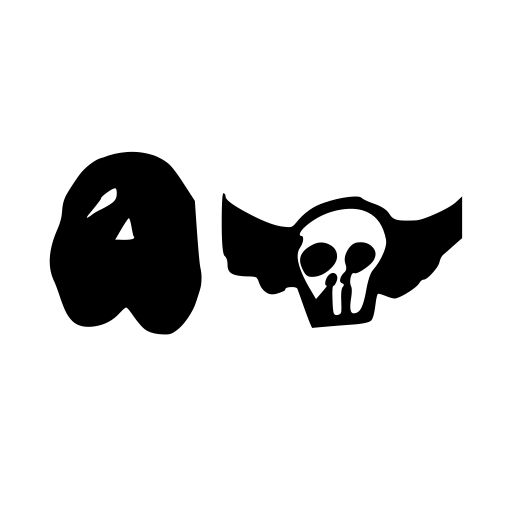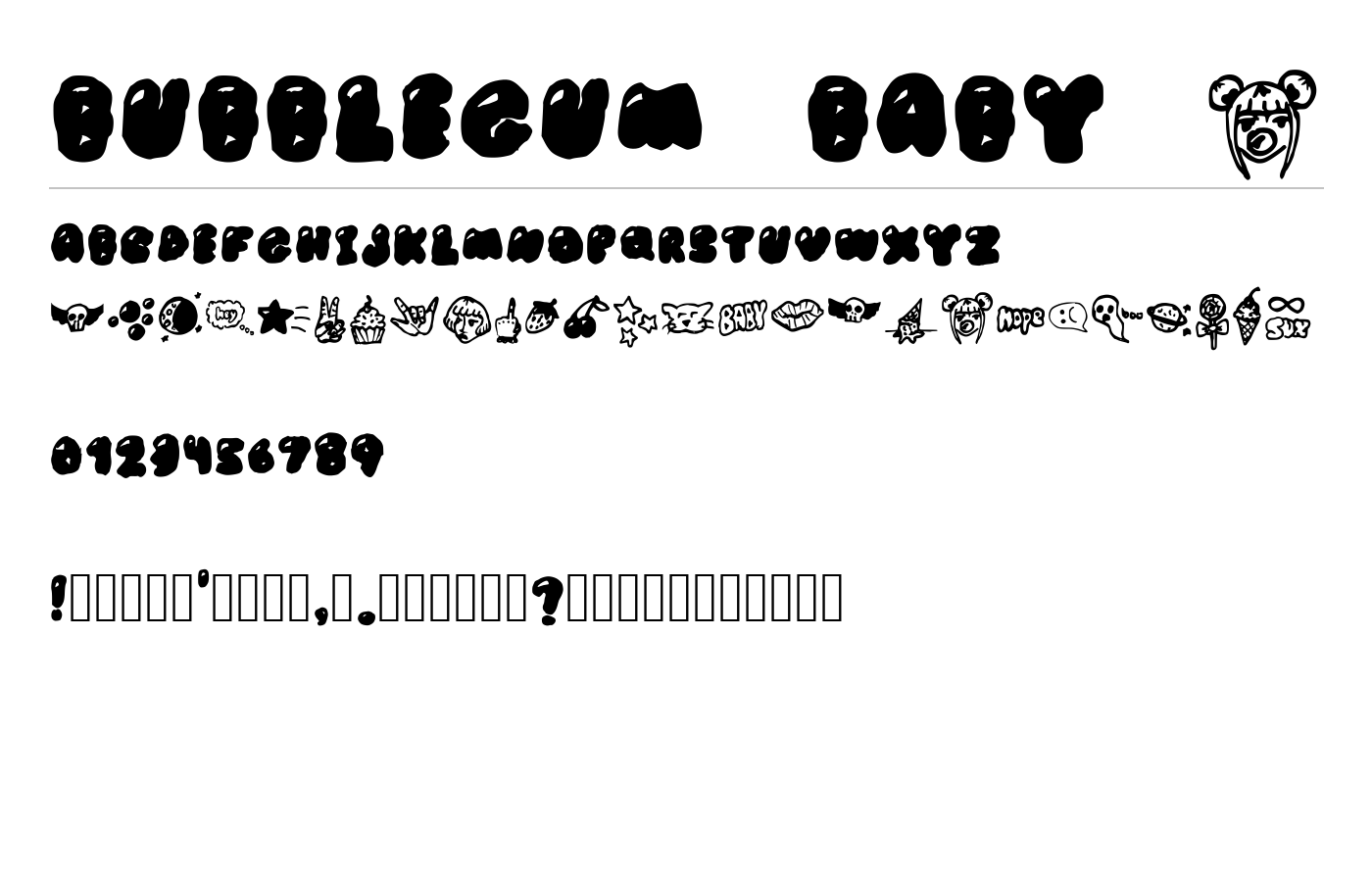
Bubblegum Baby s is a playful, bold display font characterized by its chunky, irregular shapes that evoke a bubbly, hand-drawn feel. Its heavy weight and tight, rounded forms make it perfect for eye-catching, youthful designs, ideal for logos, kids' products, or fun posters where a quirky, energetic vibe is desired. This font’s unique style adds personality and charm, making it standout in creative, informal contexts.
BUBBLEGUM BABY s Font